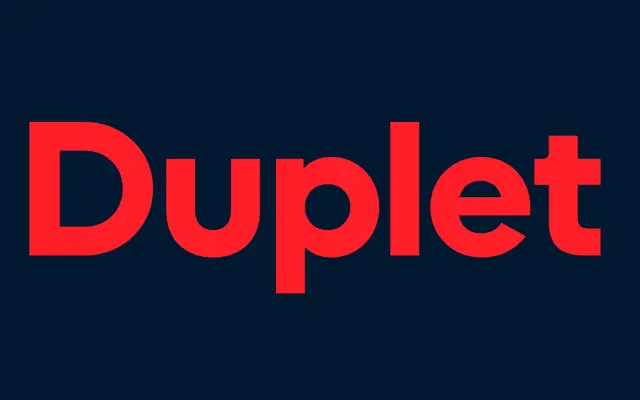
A geometric sans with open apertures, offered in seven weights with matching italics as part of ITF's broader Duplet family.
Part of Indian Type Foundry's Duplet family alongside the standard and Rounded cuts, Duplet Open distinguishes itself through open apertures that improve legibility at smaller sizes. The family runs from Thin to Extrabold across fourteen styles with full italic coverage. It suits interface, editorial and corporate work where a clean geometric structure is needed without the closed forms of a strict geometric sans.
Duplet Open belongs to the geometric sans tradition, sharing its structural DNA with the Duplet family; the 'Open' variant suggests open apertures that distinguish it from the standard cut.